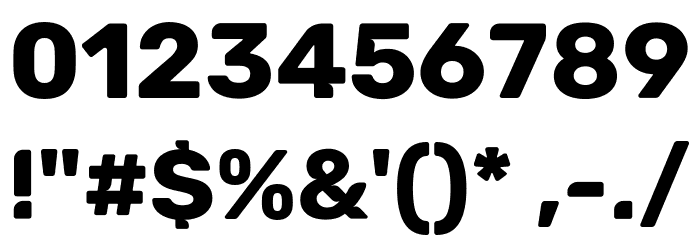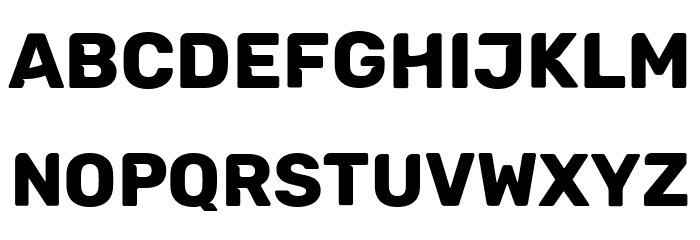
Cunia Font
This font features bold, geometric letterforms with a strong presence. The characters are uniformly thick, providing a consistent and solid appearance. The uppercase letters are particularly striking, with a modern and clean design that emphasizes clarity and readability. The numerals and special characters maintain the same boldness, ensuring a cohesive look across all text elements. The overall style is straightforward and impactful, making it suitable for attention-grabbing headlines or branding materials. The font's design is both contemporary and versatile, allowing it to be used in a variety of contexts where a strong visual statement is desired.
A bold, geometric font with a modern and clean design.
• Font: Cunia
• Proposed Projects: Ideal for branding, headlines, posters, and advertising materials.
• Category: Sans-Serif
• Bold: Yes
• Italic: No
• Weight: Bold
• Width: Normal
• Character Spacing: Normal
• Contrast: Low
• Overall Style: Modern
• Use Case: Headlines, Logos